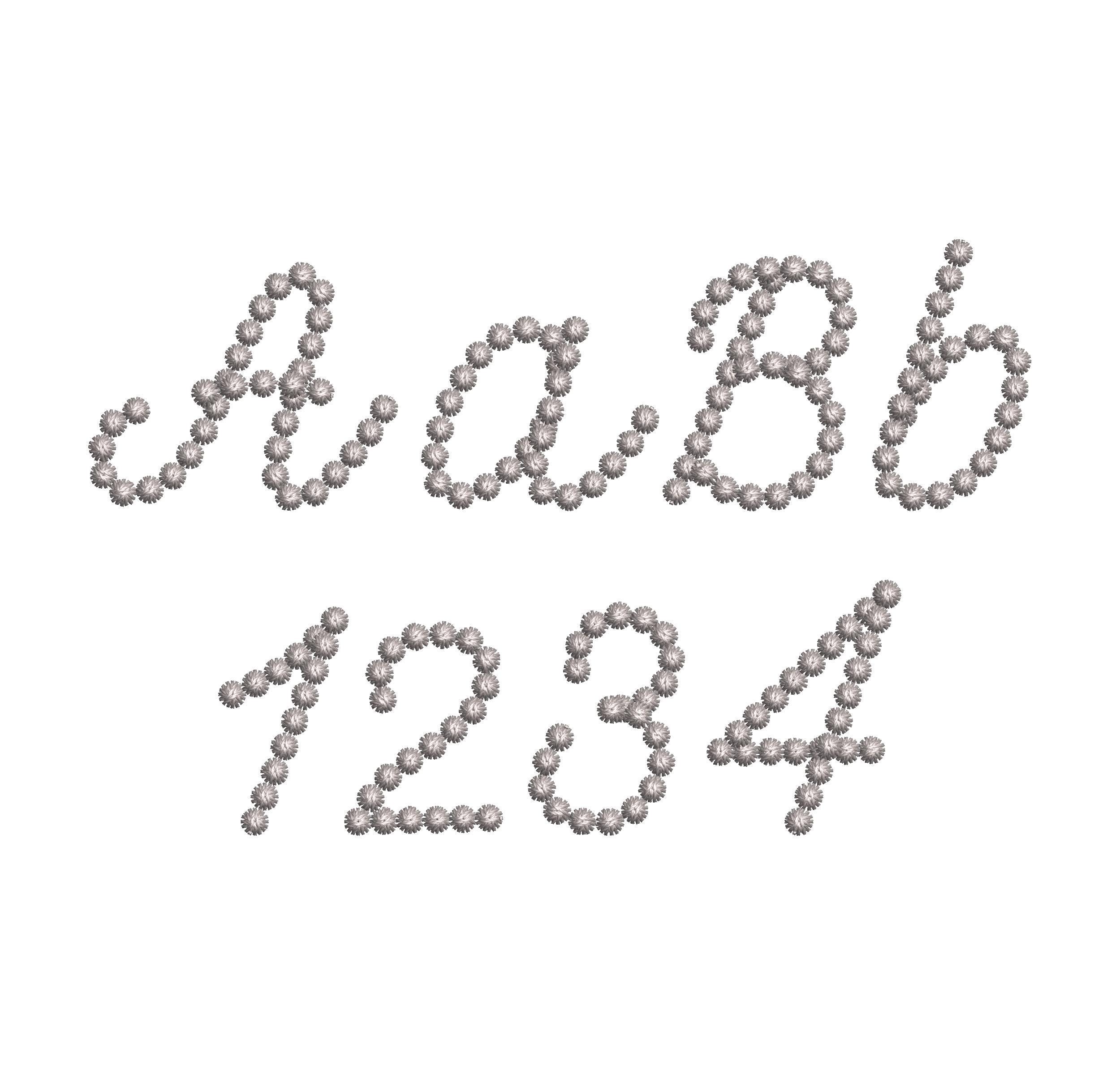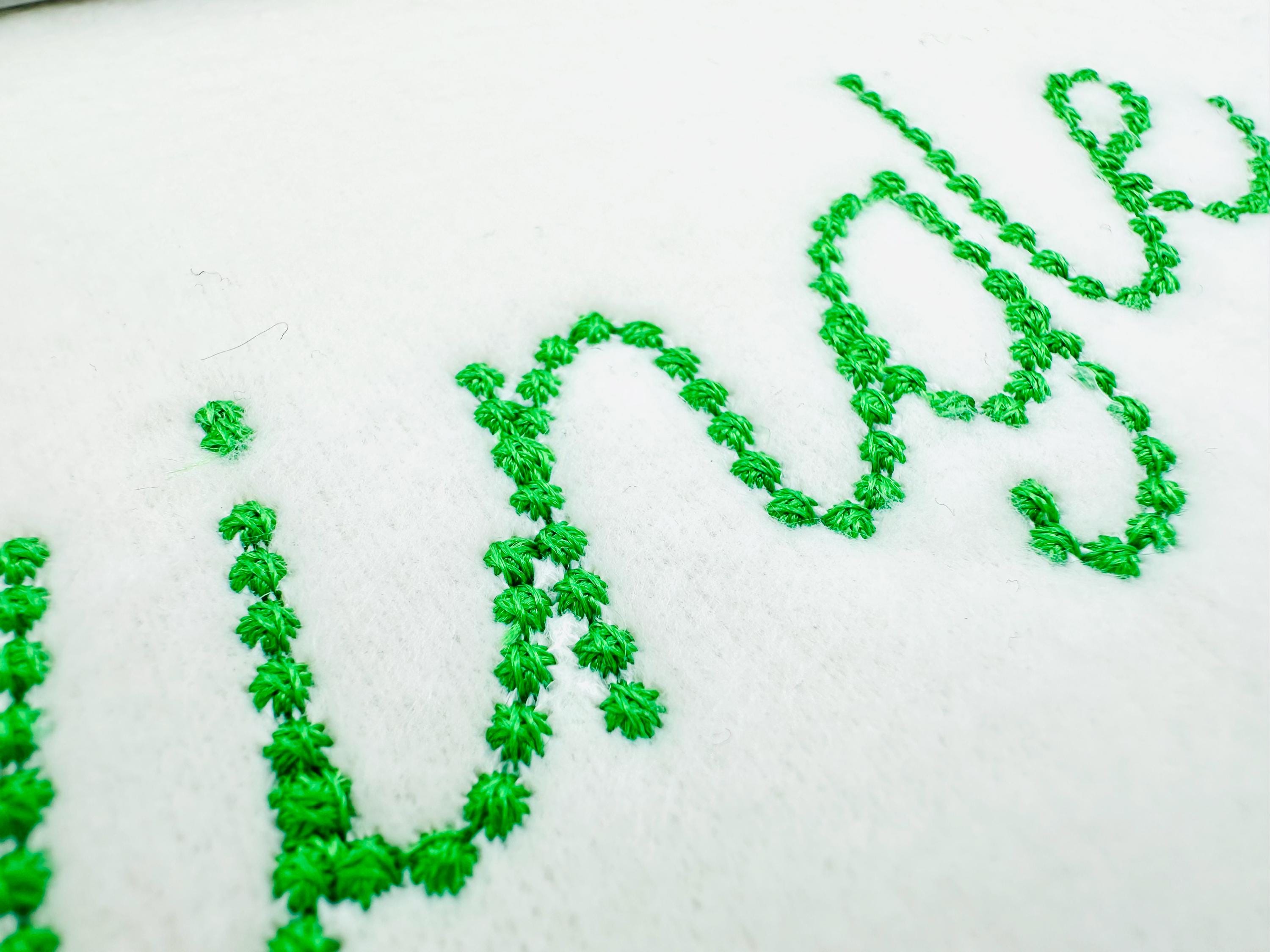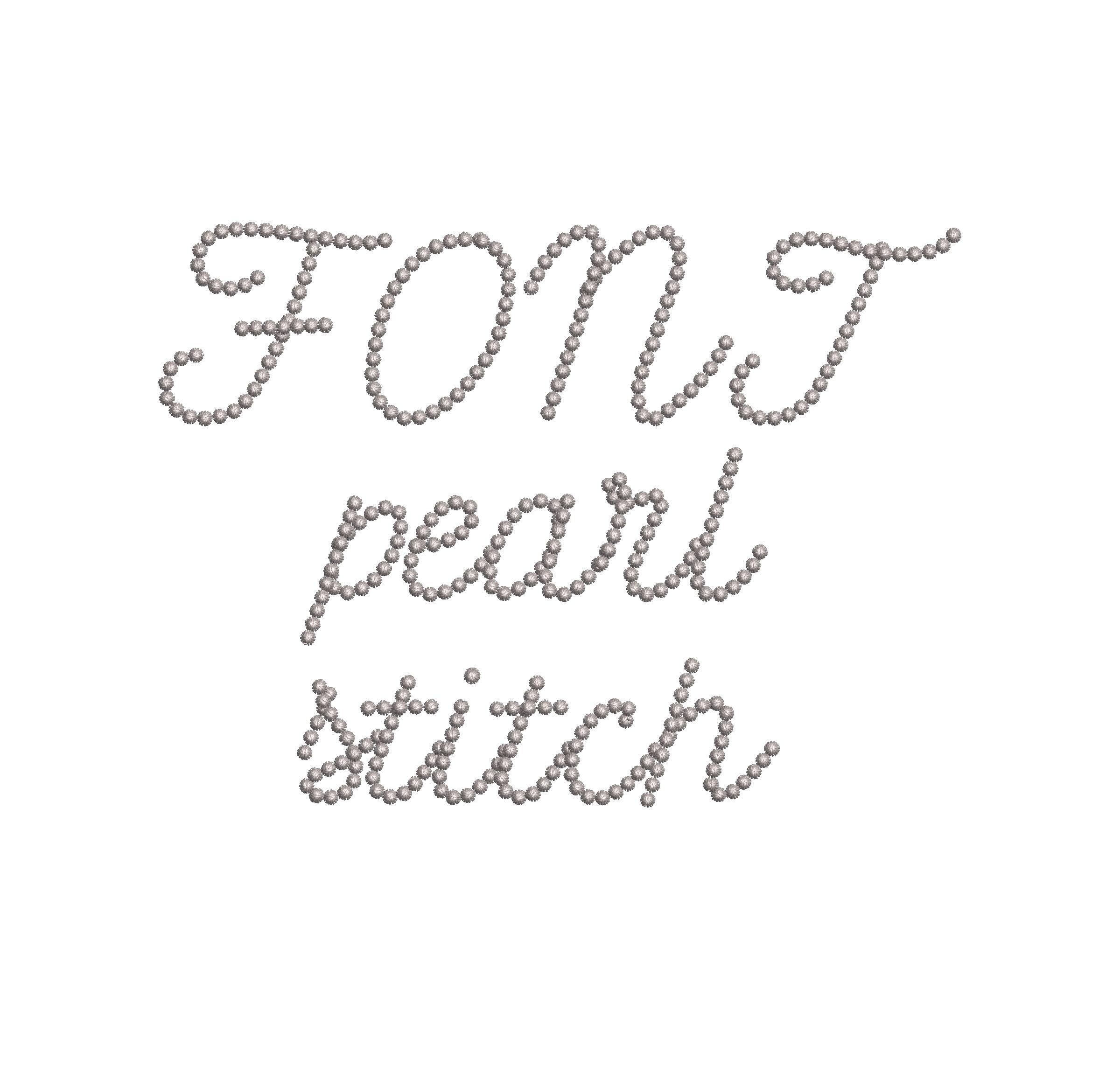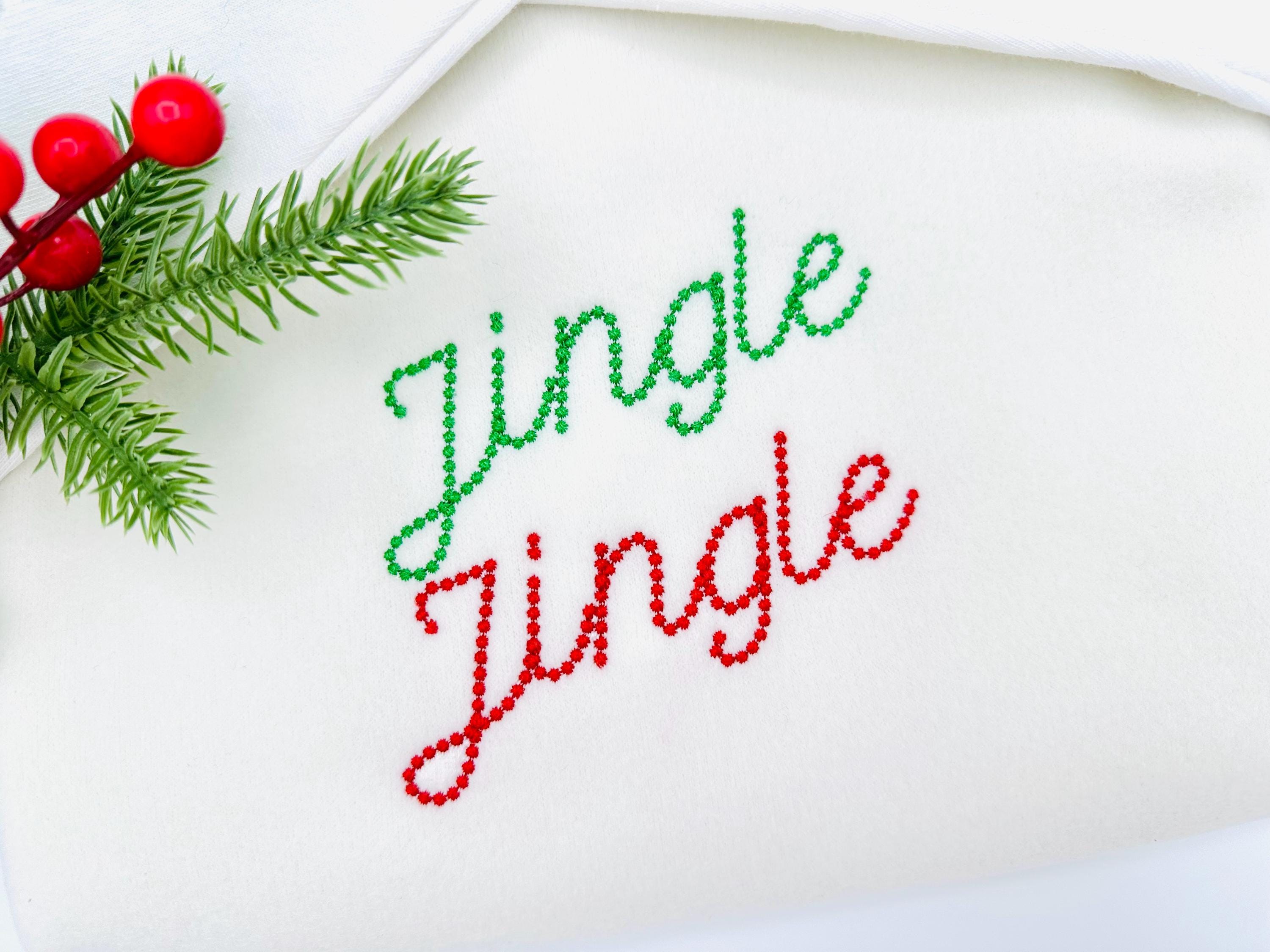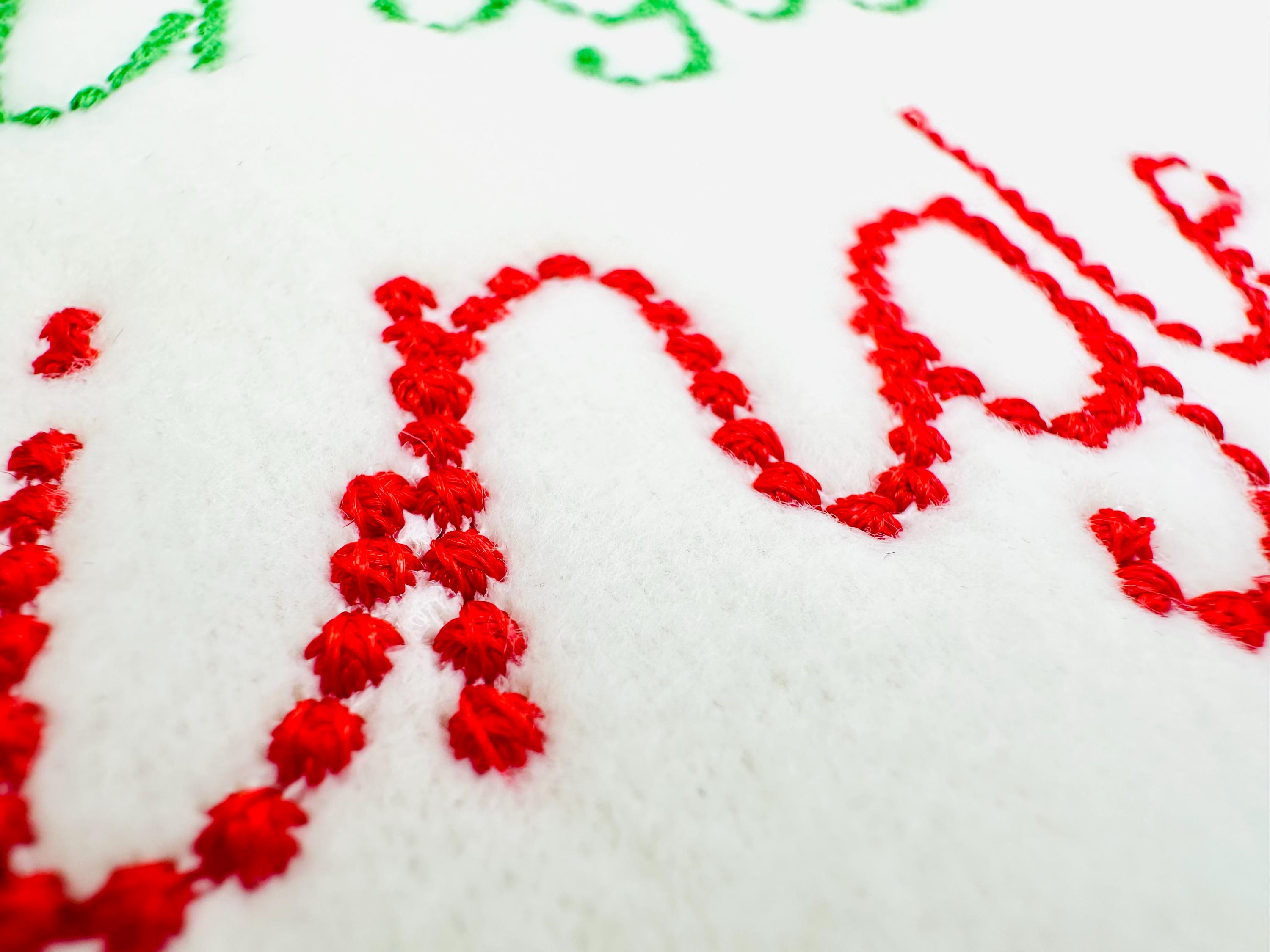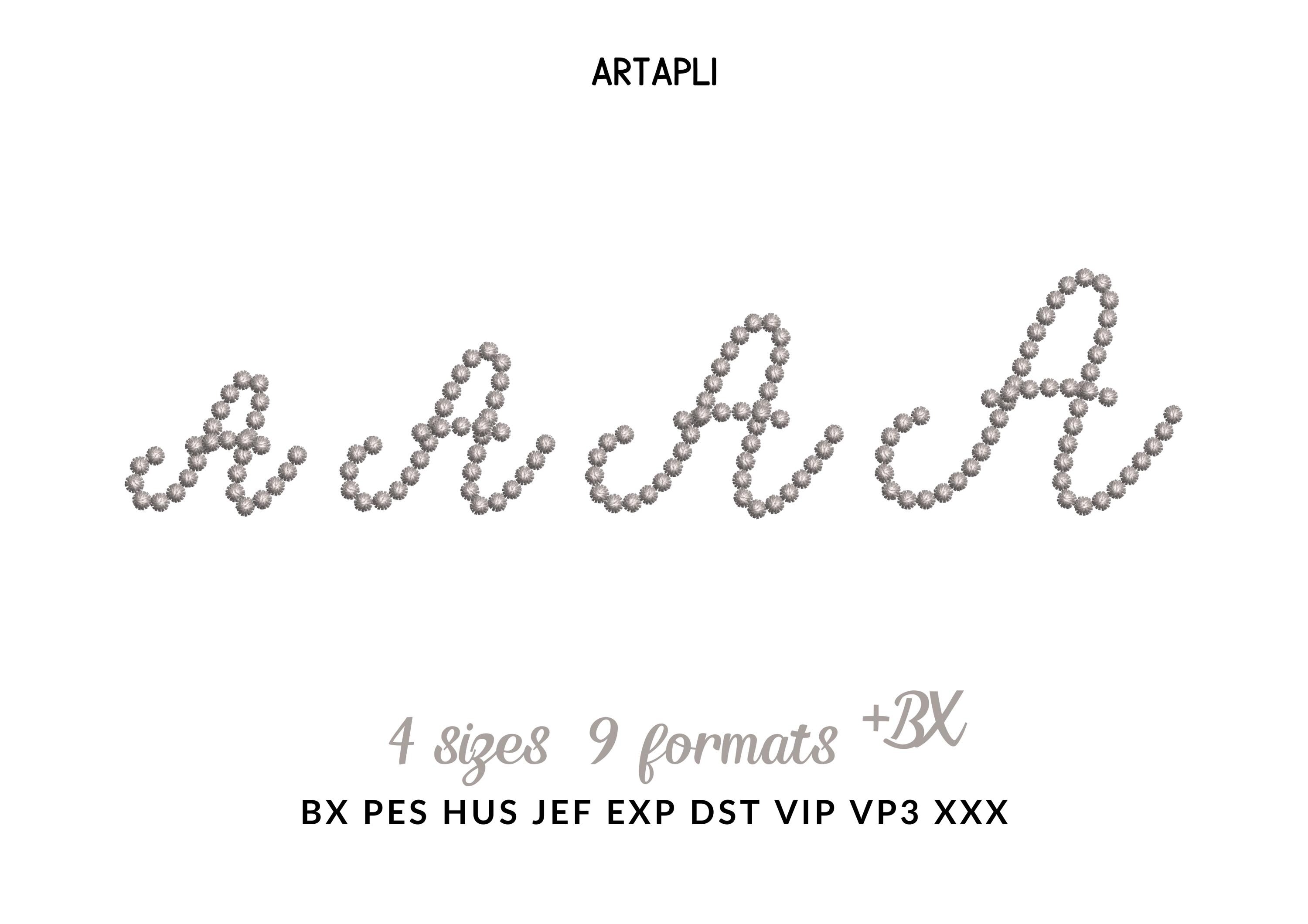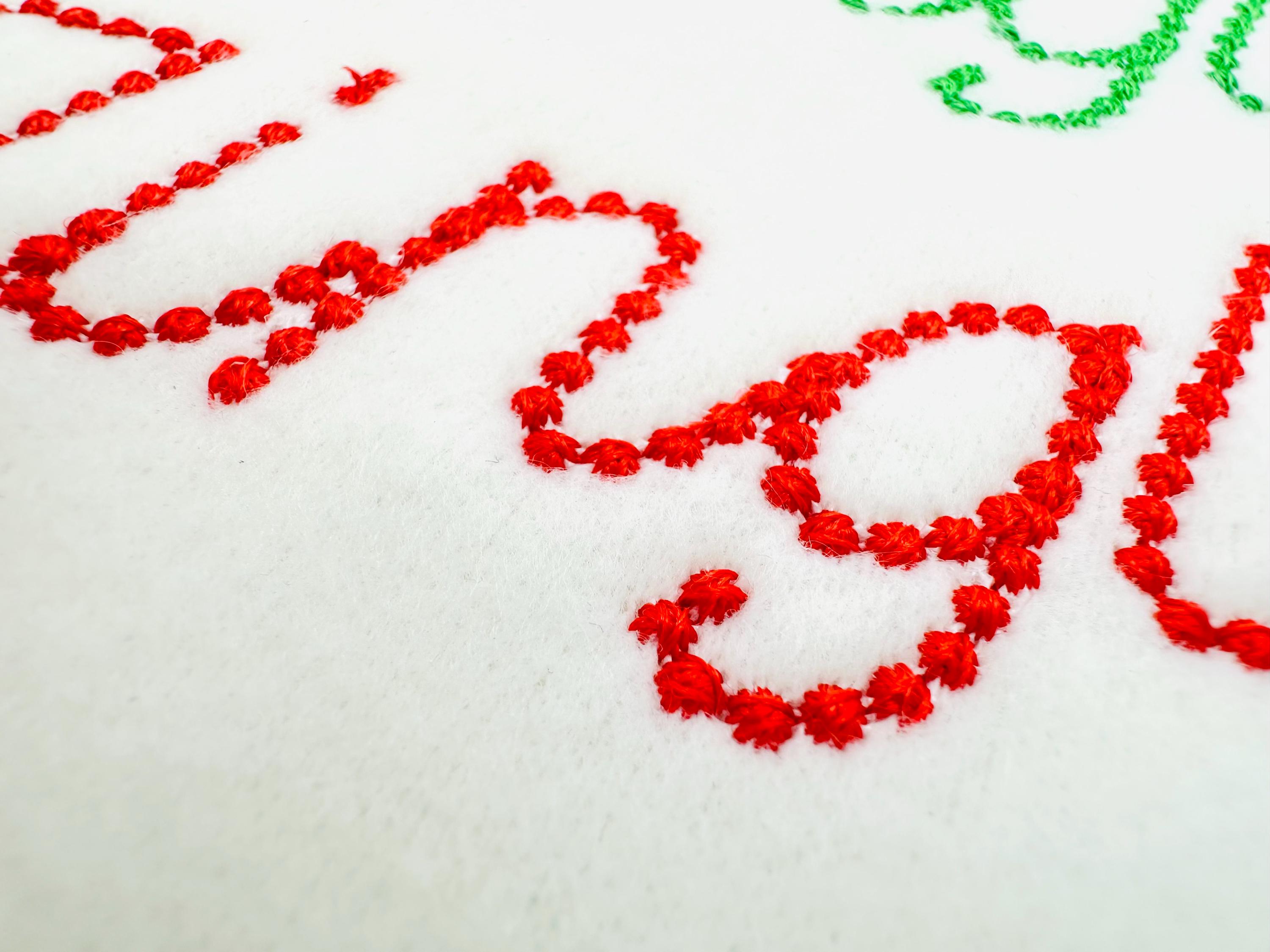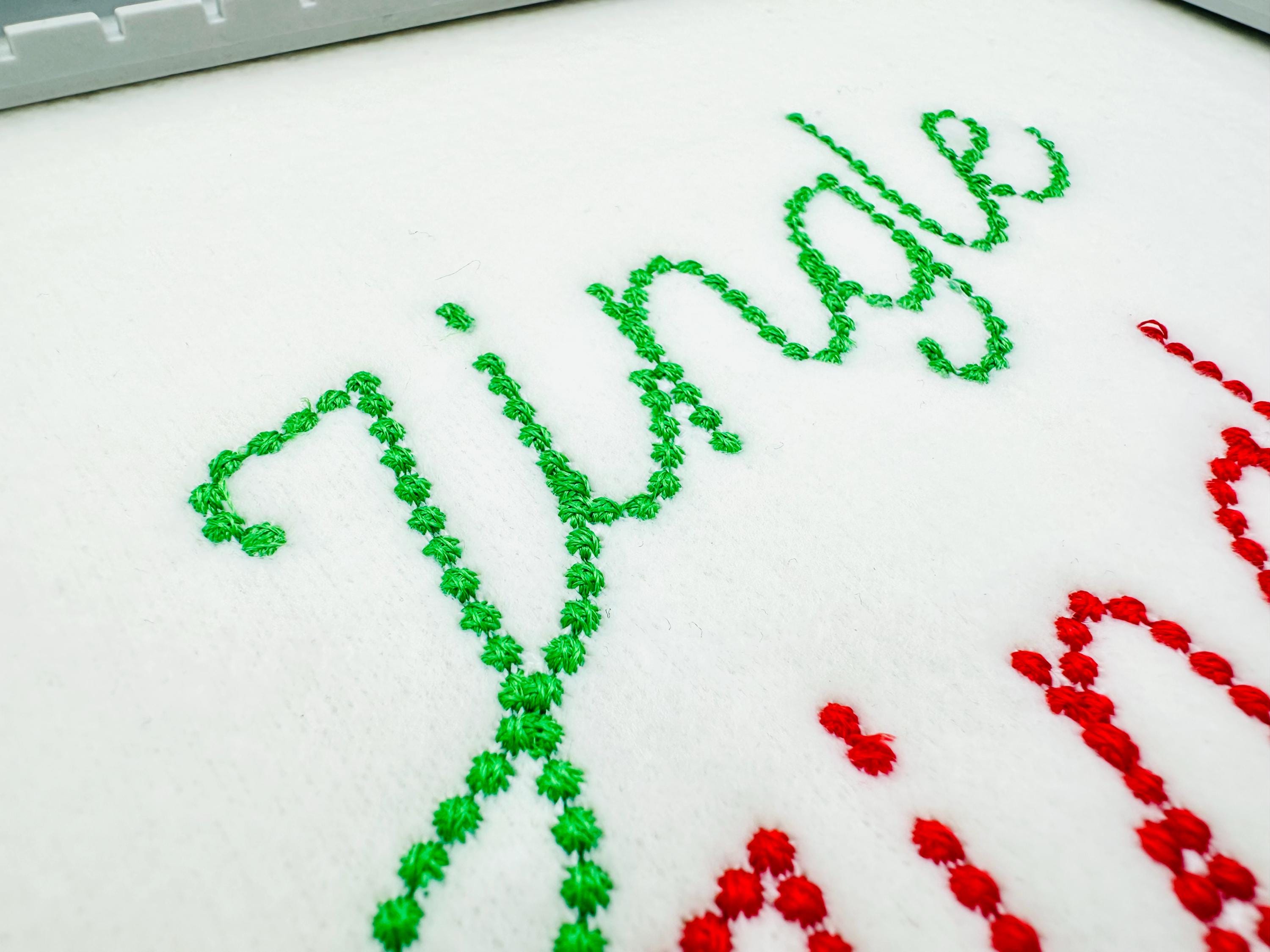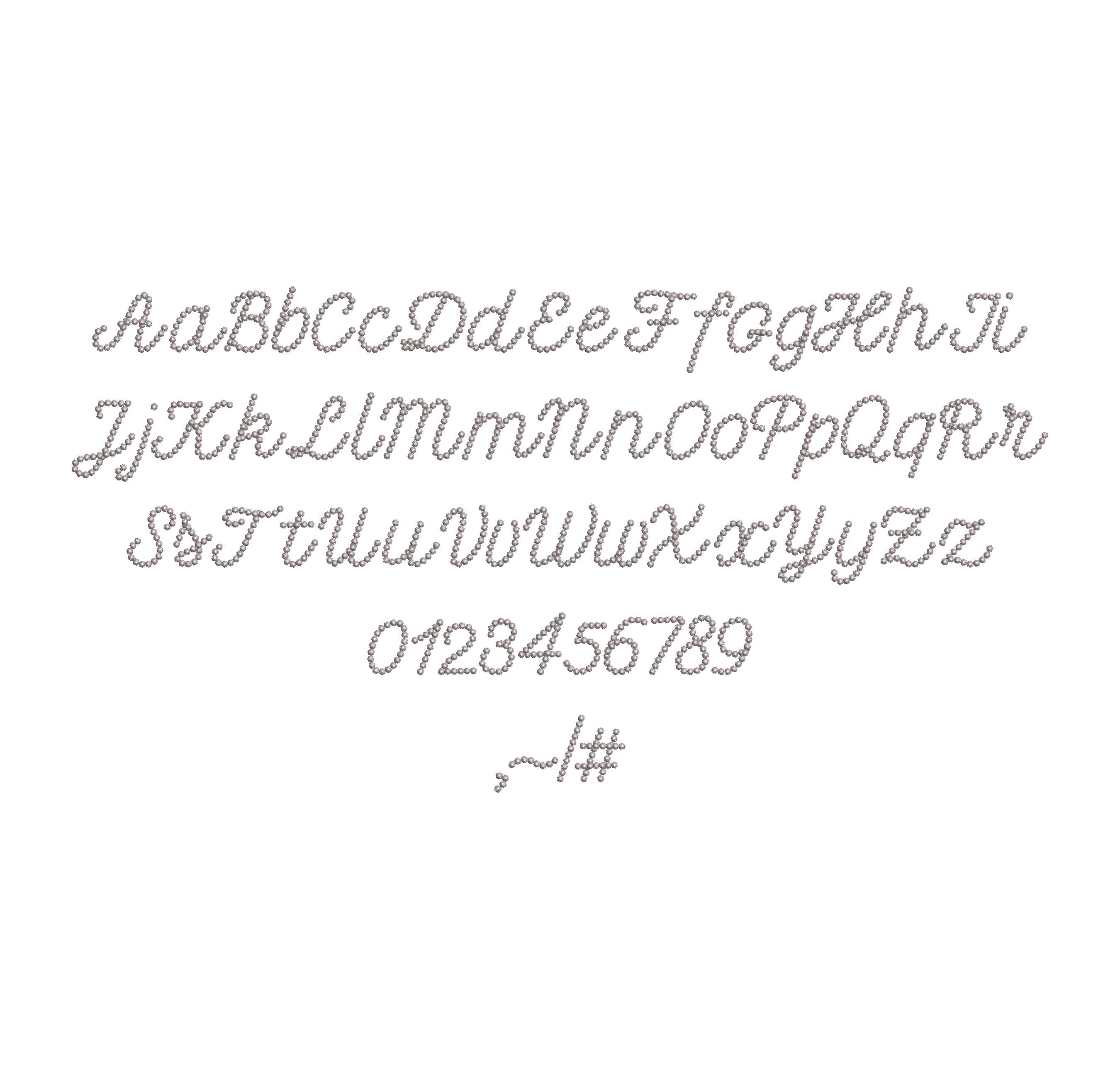
Petit Pearl FONT handwritten script Alphabet Monogram pearl stitch machine embroidery designs kids girls name mini sizes 0.9 up to 1.6 inch
The font has a nice pearl stitch.
Entire alphabet of uppercase and lowercase letters Aa-Zz, numbers 0-9, and punctuation